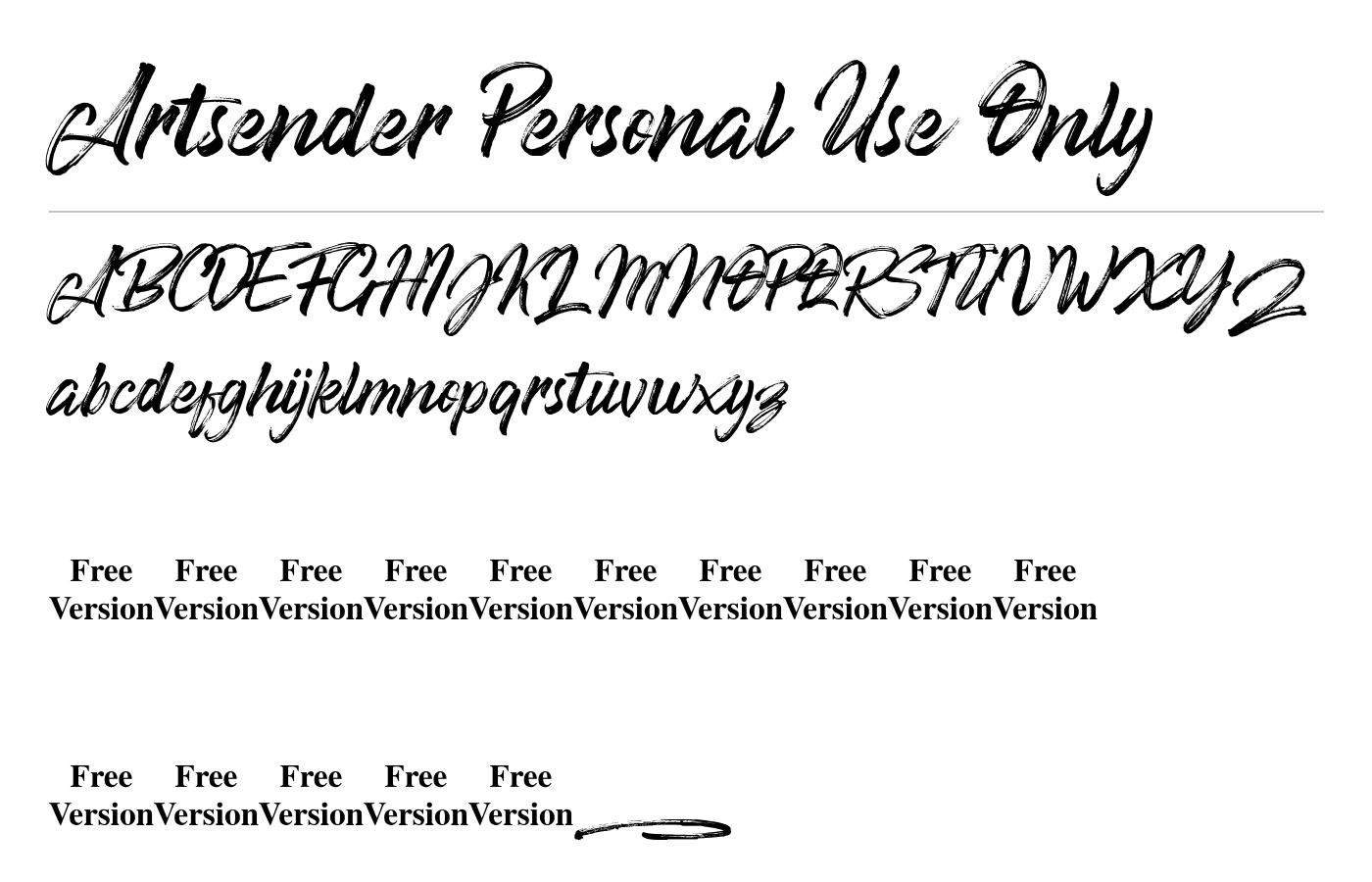
Artsender Personal Use Only is a dynamic and expressive script font that mimics natural brush strokes, giving it a casual yet artistic feel. Its varied stroke width and textured edges create a spirited, hand-crafted appearance ideal for creative projects, branding, and invitations. This font works well to convey energy and personality, making it perfect for fashion, lifestyle, and artistic contexts where a bold, informal touch is desired.
Artsender Personal Use Only Font
About Artsender Personal Use Only Font
| Font family | Artsender Personal Use Only Font |
| Designer | Fuad Hasan |